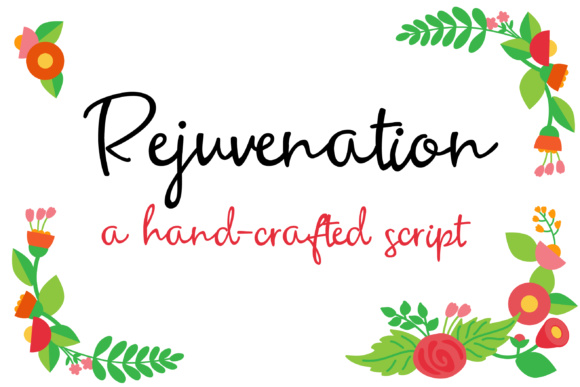
Introducing Rejuvenation Font, the charming and elegant script font that will transform your digital creations. This exquisite font, meticulously crafted by Illustration Ink, captures the essence of handwritten elegance, delivering a casual and inviting touch to your designs.
Immerse yourself in the beauty of Rejuvenation Font, a script font that embodies grace and charm. Its flowing lines and delicate curves evoke a sense of artistry, making it an ideal choice for adding a personal touch to your projects.
With Rejuvenation Font, you'll discover endless possibilities for creative expression. From heartfelt invitations to captivating social media posts, this font will elevate your designs, making them stand out from the crowd. Its versatility extends to logos, branding, and even website design, allowing you to create a cohesive and visually appealing online presence.
Embrace the allure of Rejuvenation Font and watch your designs come to life with a touch of sophistication and elegance. Let this beautiful font captivate your audience, leaving a lasting impression that will inspire and engage. Don't miss this opportunity to transform your creative endeavors with Rejuvenation Font, the epitome of handwritten artistry and charm.